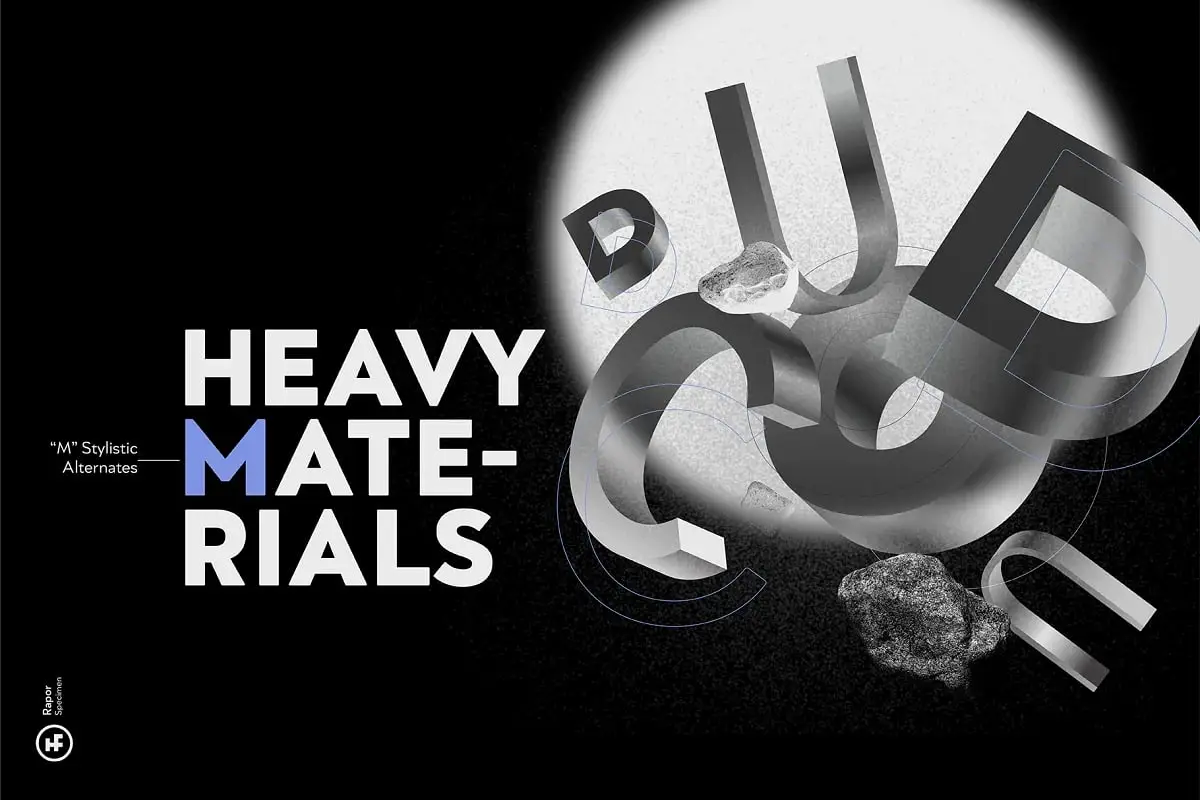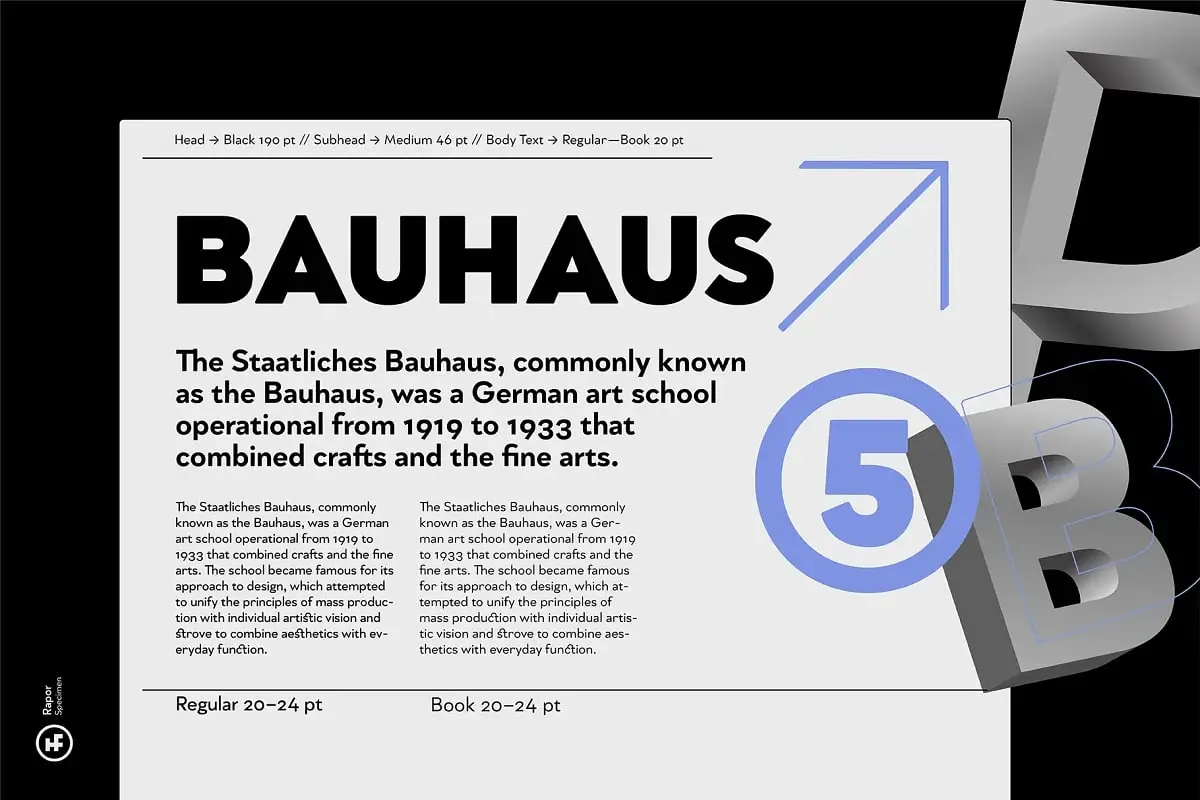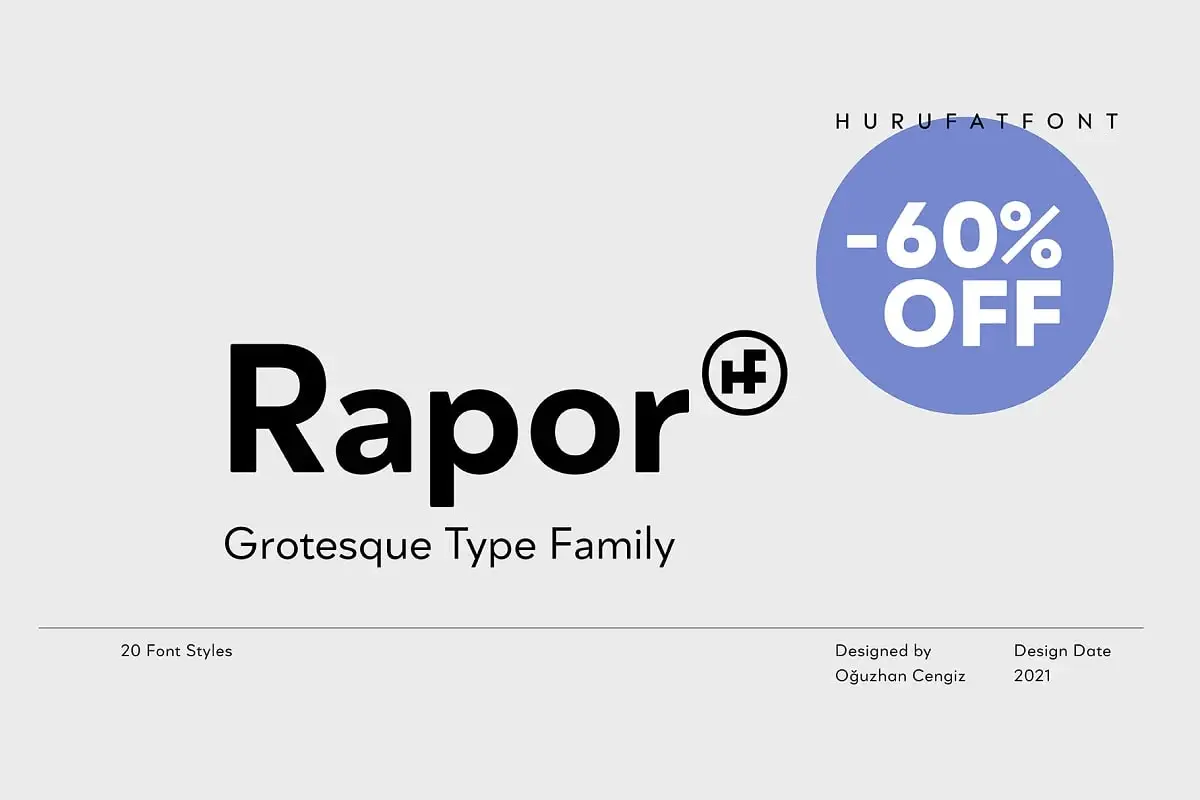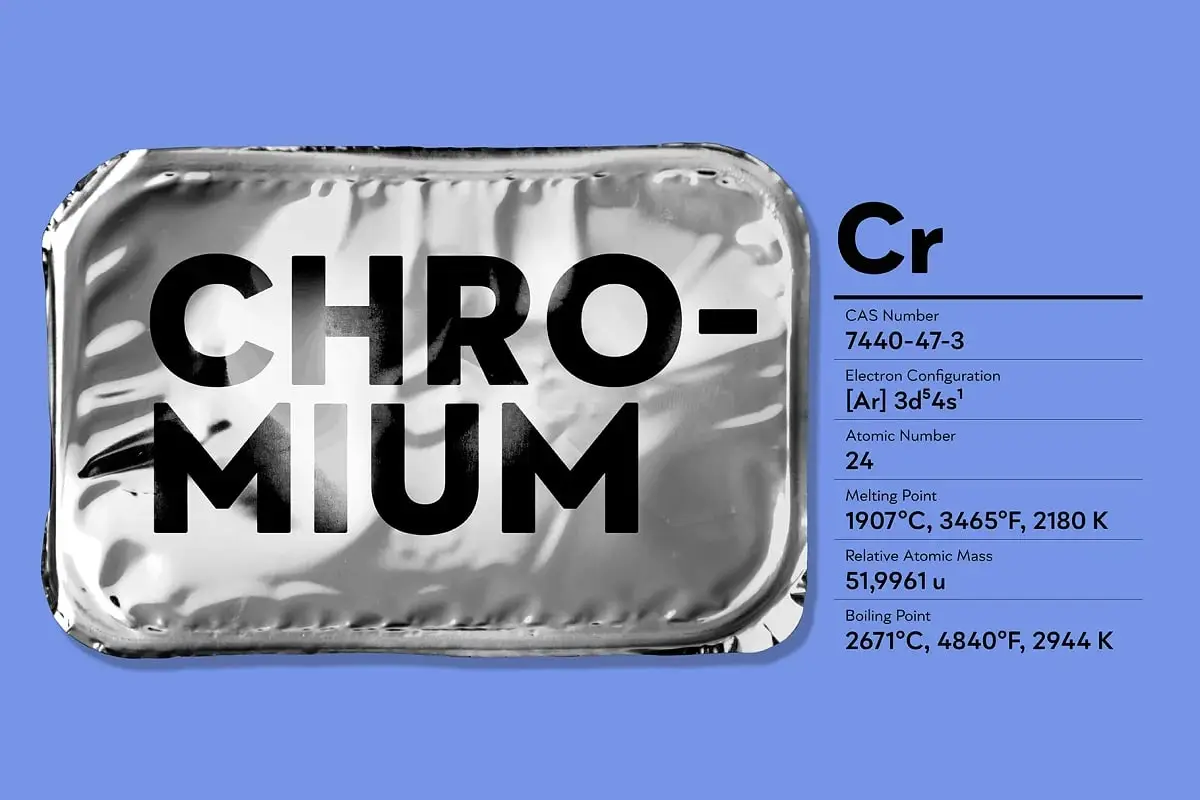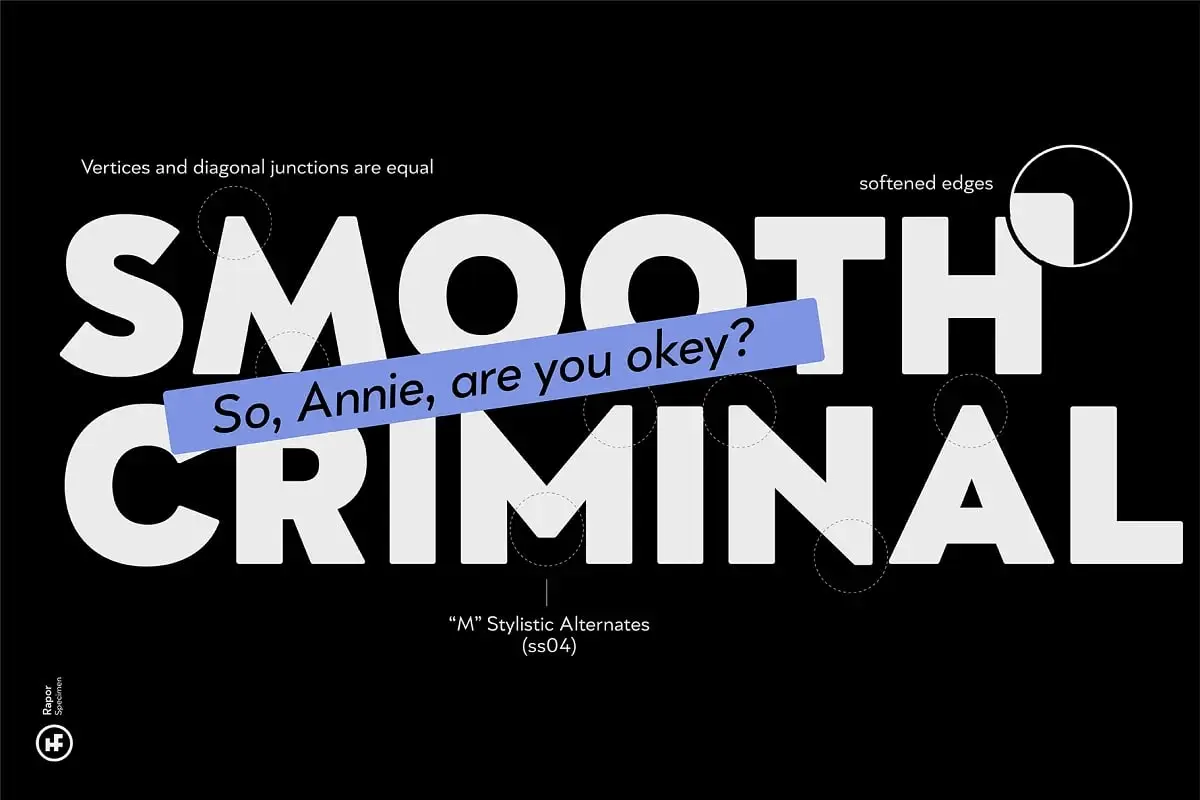
Rapor Grotesque-20 Fonts
Rapor Grotesque-20 Fonts is a versatile font family that combines modern aesthetics with excellent legibility. This collection features a range of styles and weights, making it suitable for various design applications.
• 20 unique font styles
• Multiple weights ranging from thin to bold
• Clean and contemporary design
This font family is ideal for branding, logo design, web content, and print materials, providing a cohesive look across all mediums.